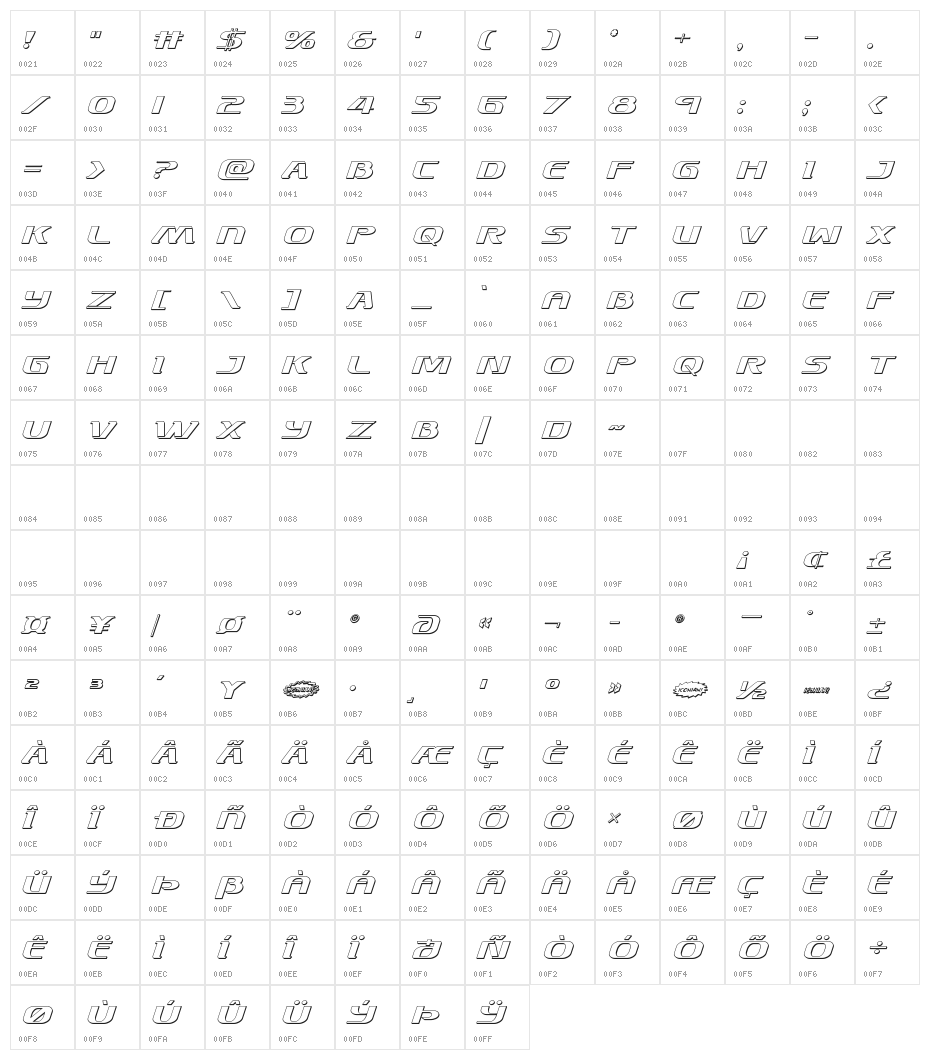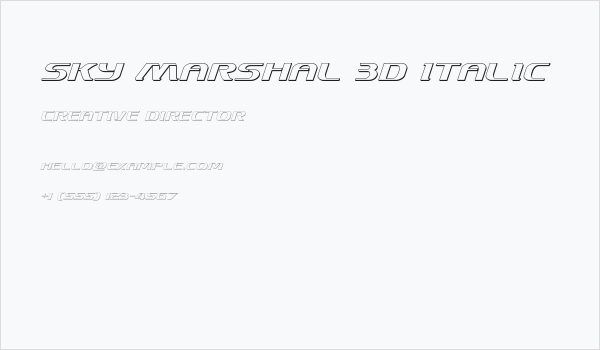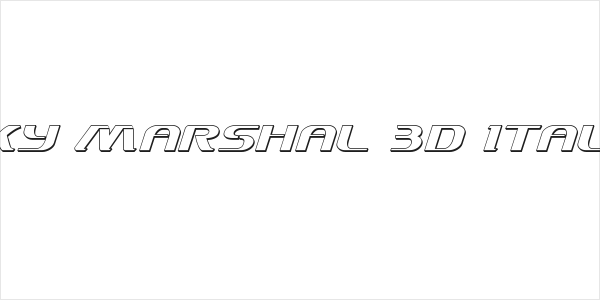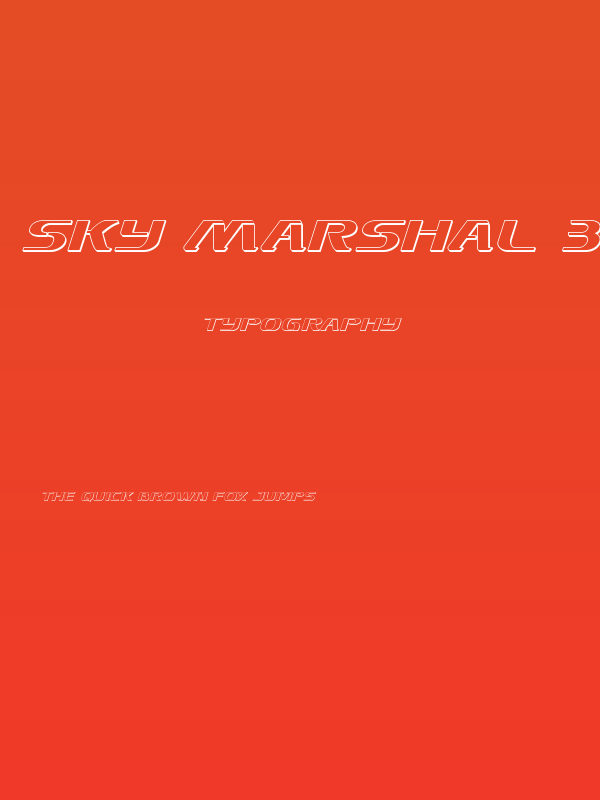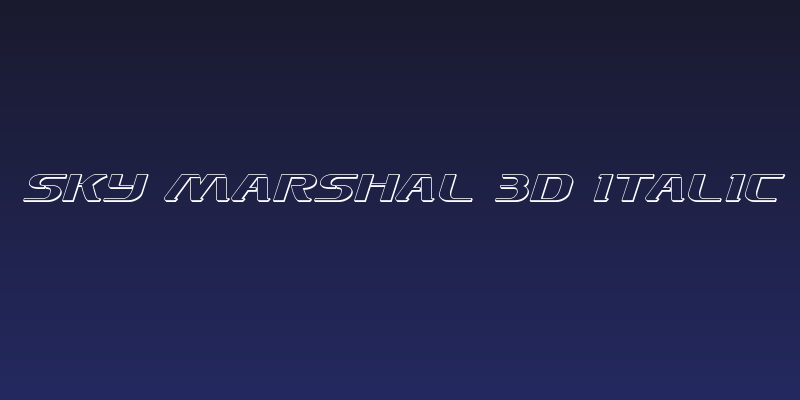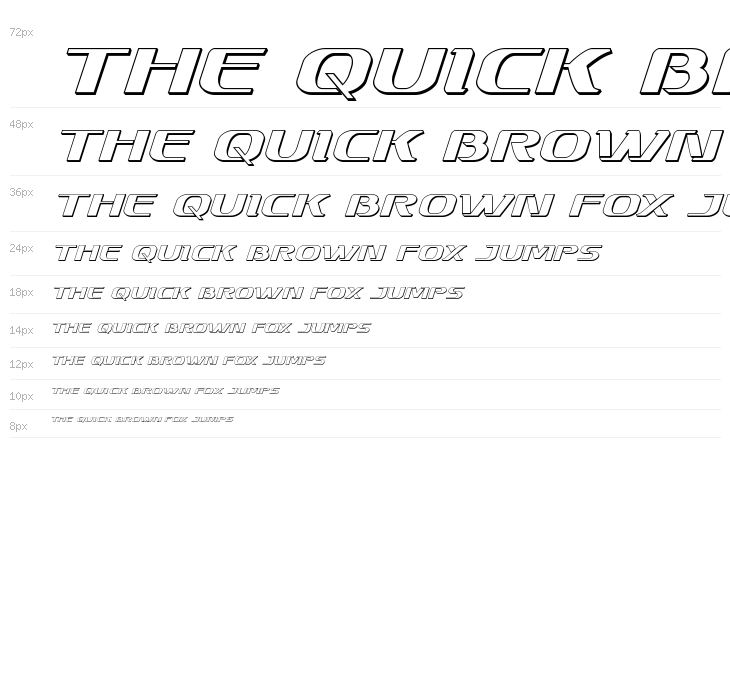
Sky Marshal 3D Italic Font
Sky Marshal 3D Italic Description
This font features a futuristic and dynamic 3D design, characterized by its italicized and geometric letterforms. The outlines are bold and create a sense of depth, giving each character a three-dimensional appearance. The angular and sleek design elements convey a sense of movement and modernity. The uppercase and lowercase letters maintain a consistent style, with sharp edges and a slight slant that enhances the italic effect. The numerals and special characters follow the same design principles, ensuring uniformity across the typeface. This font is ideal for projects that require a bold and contemporary look.